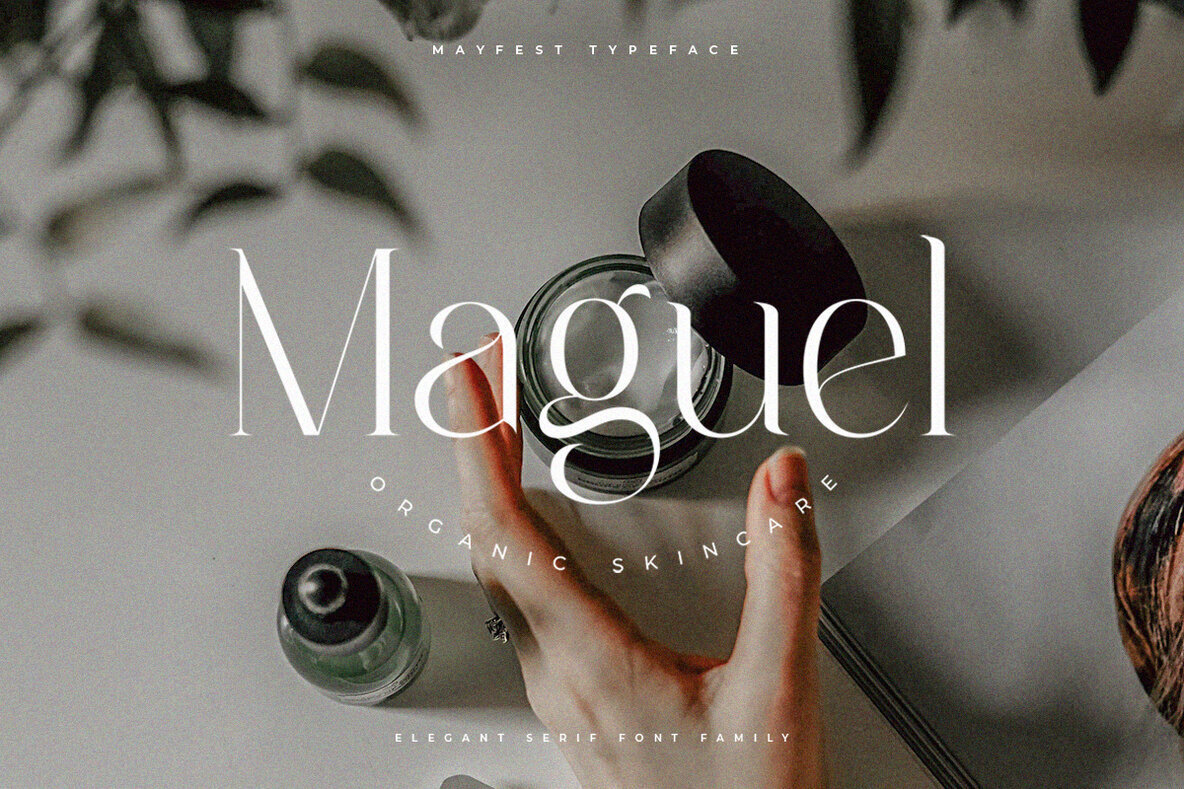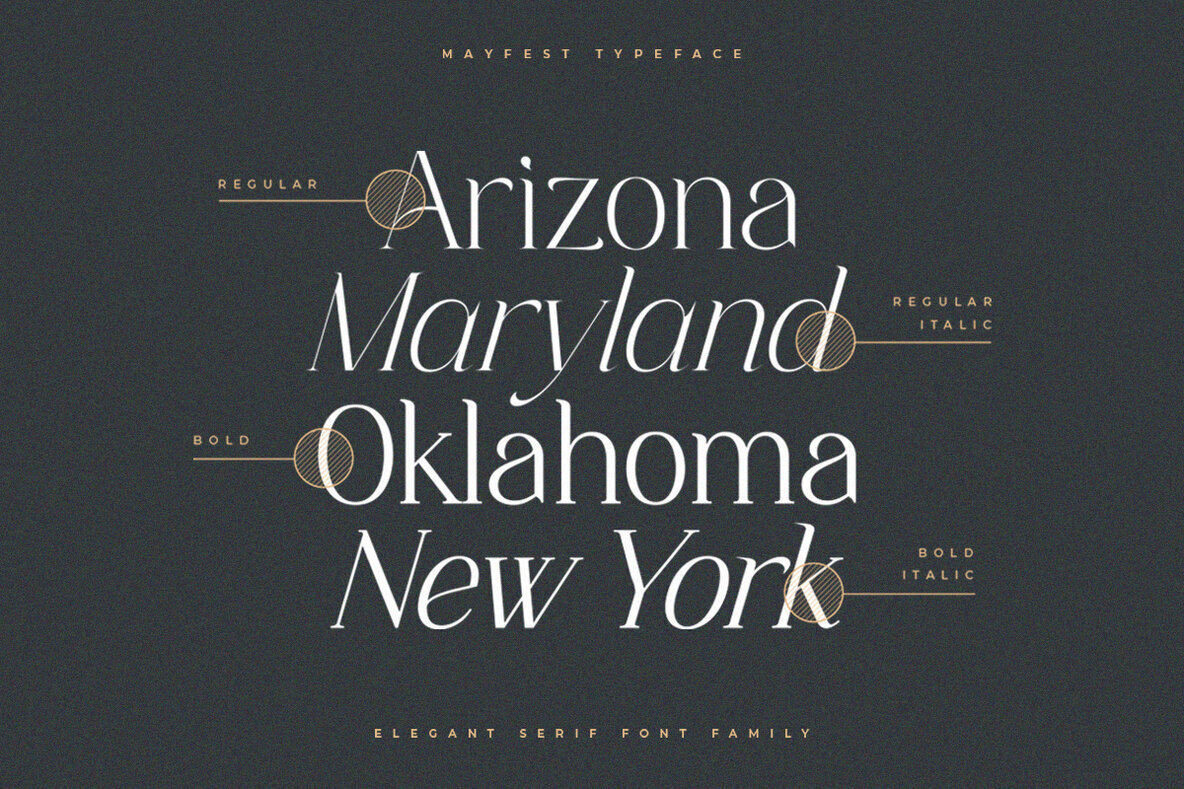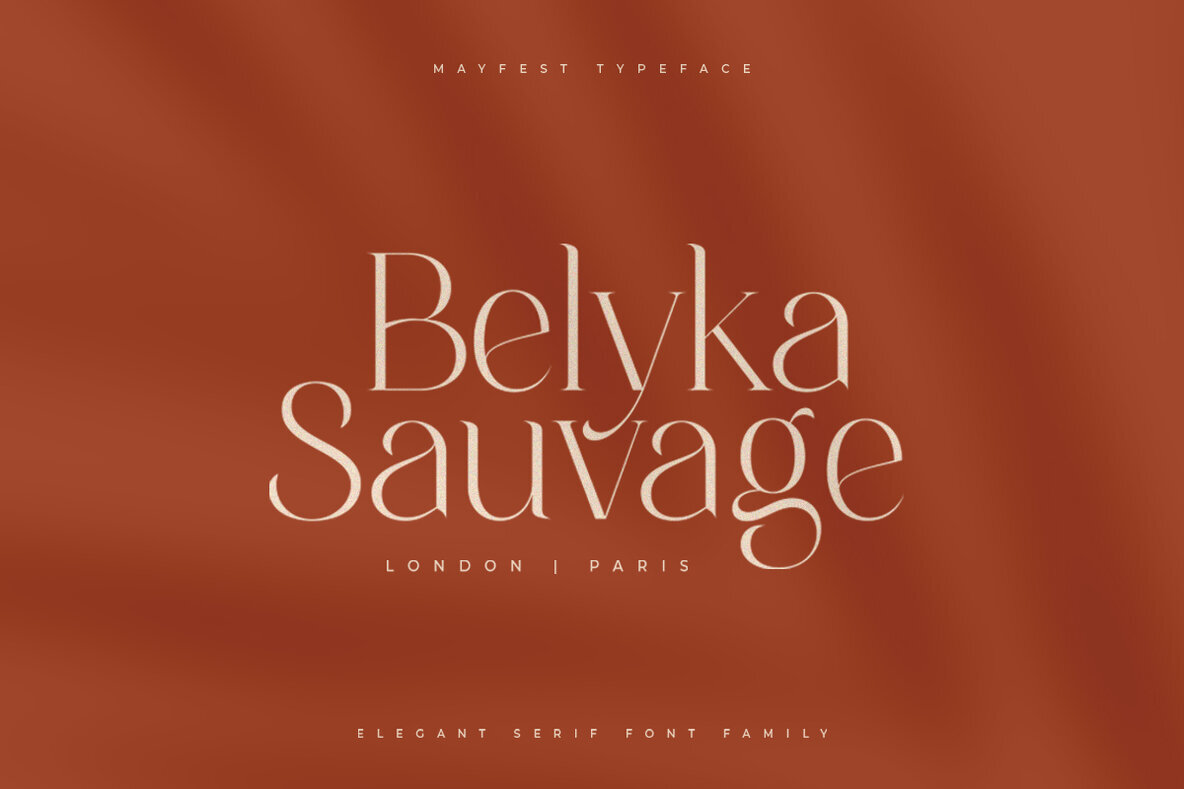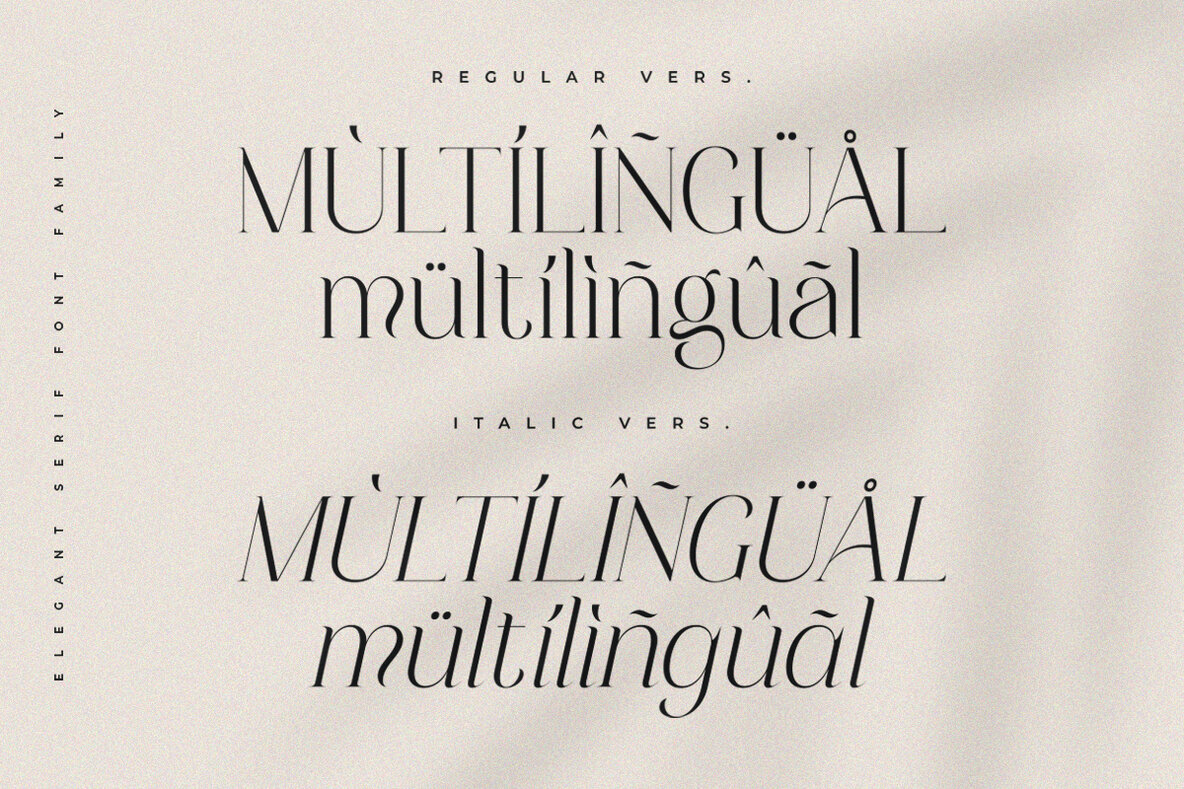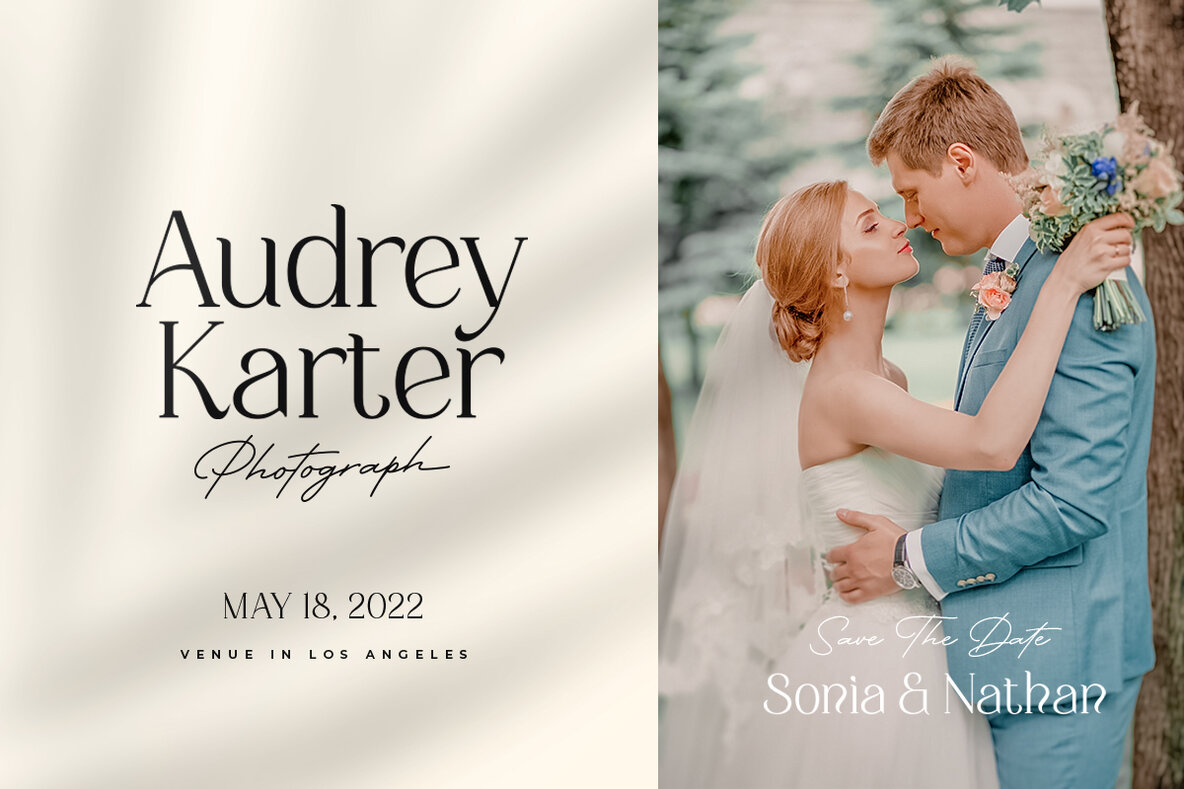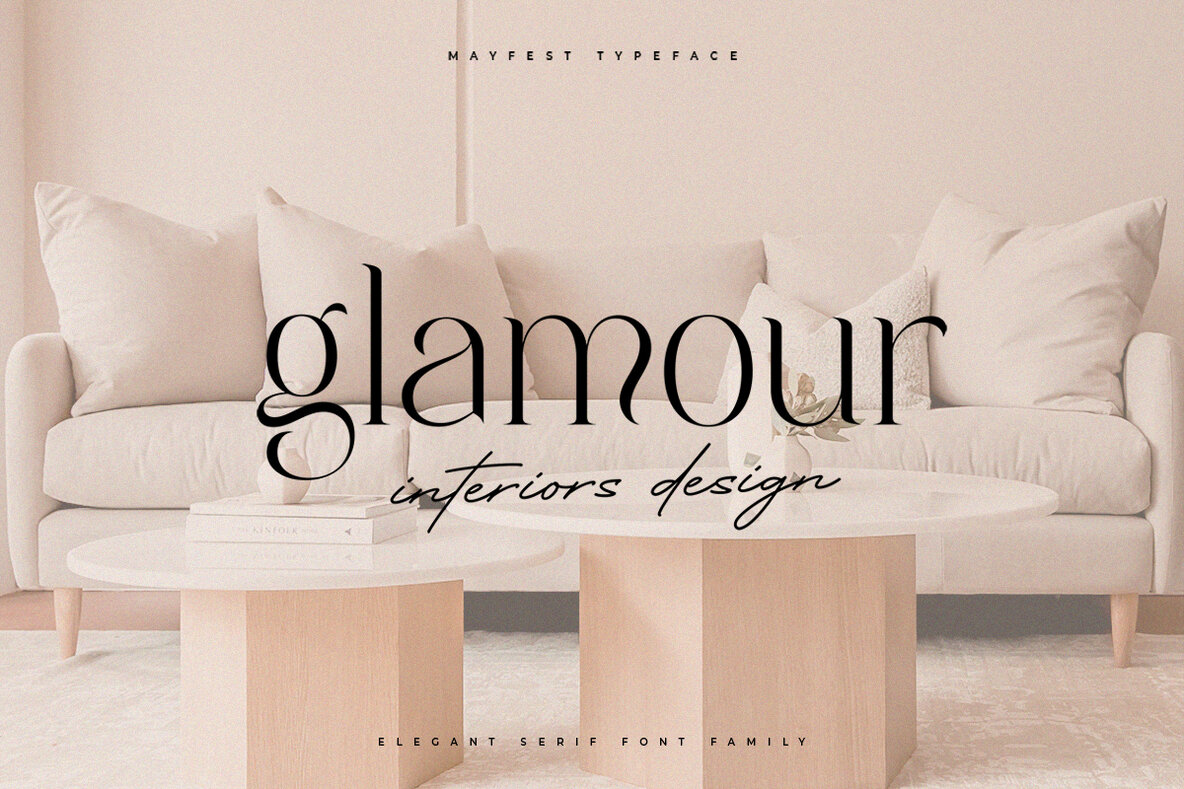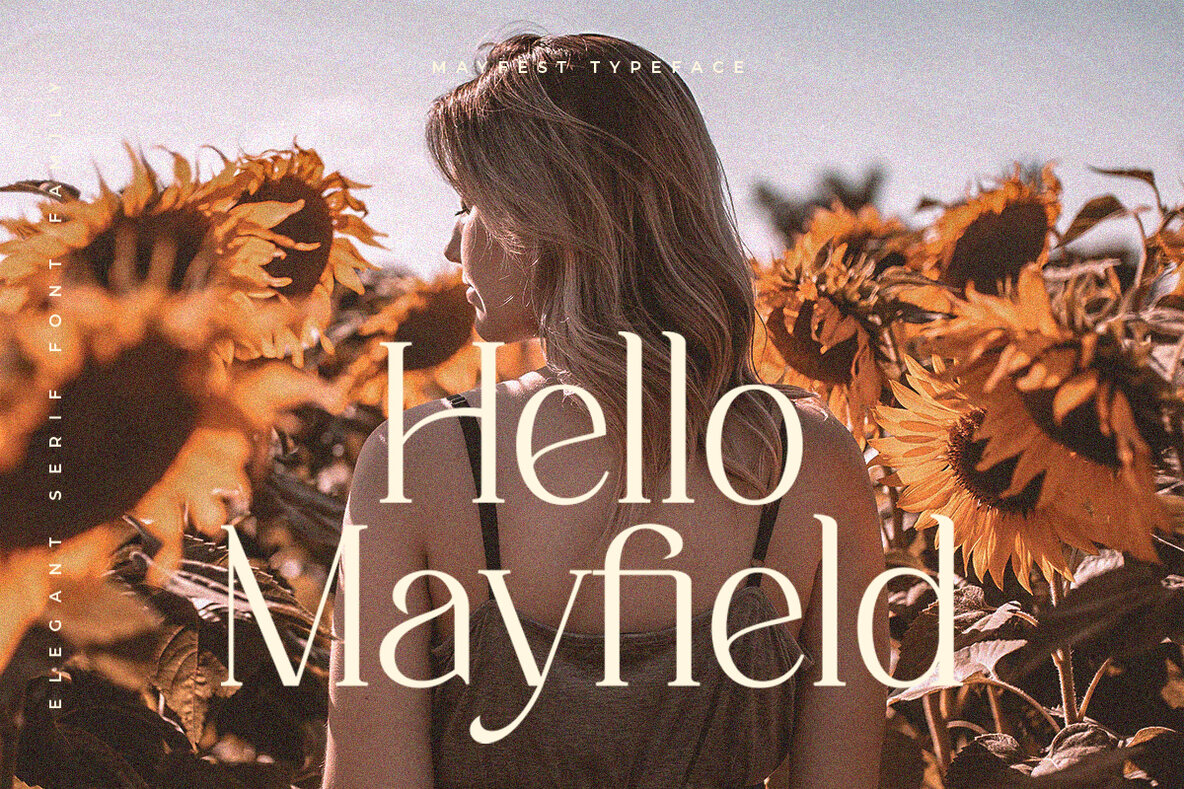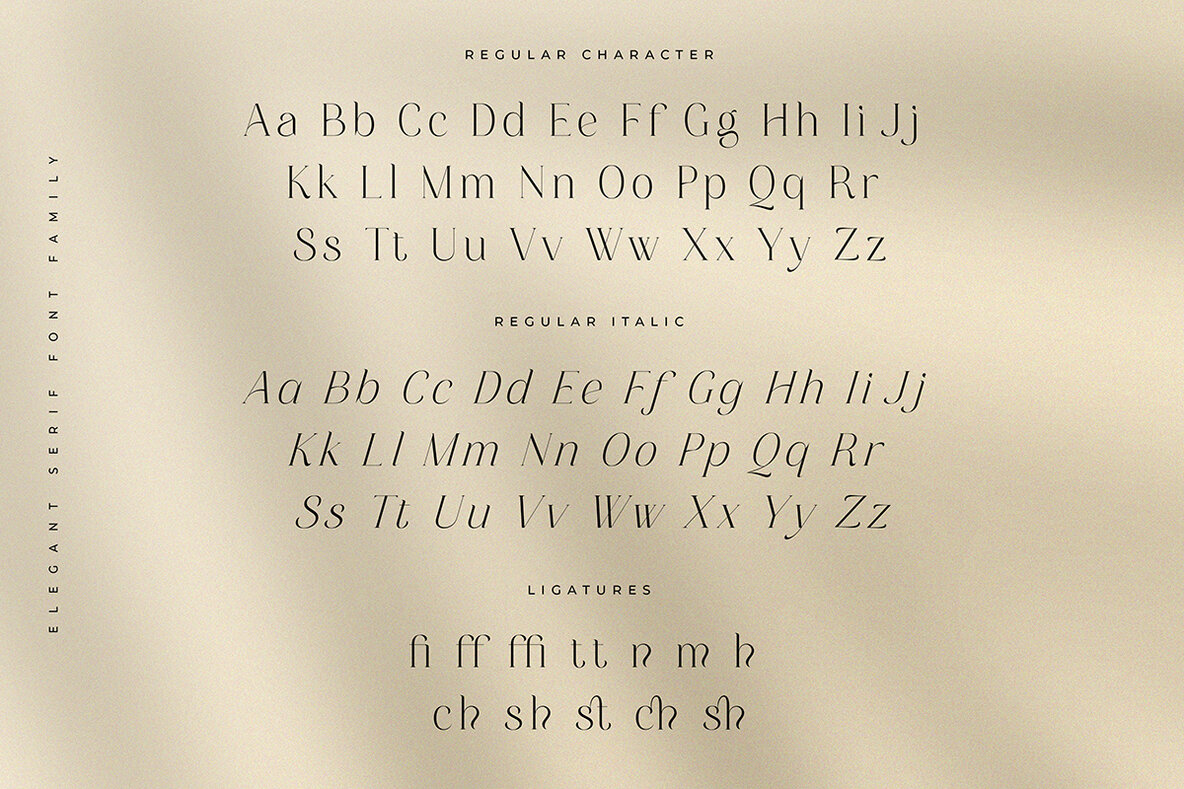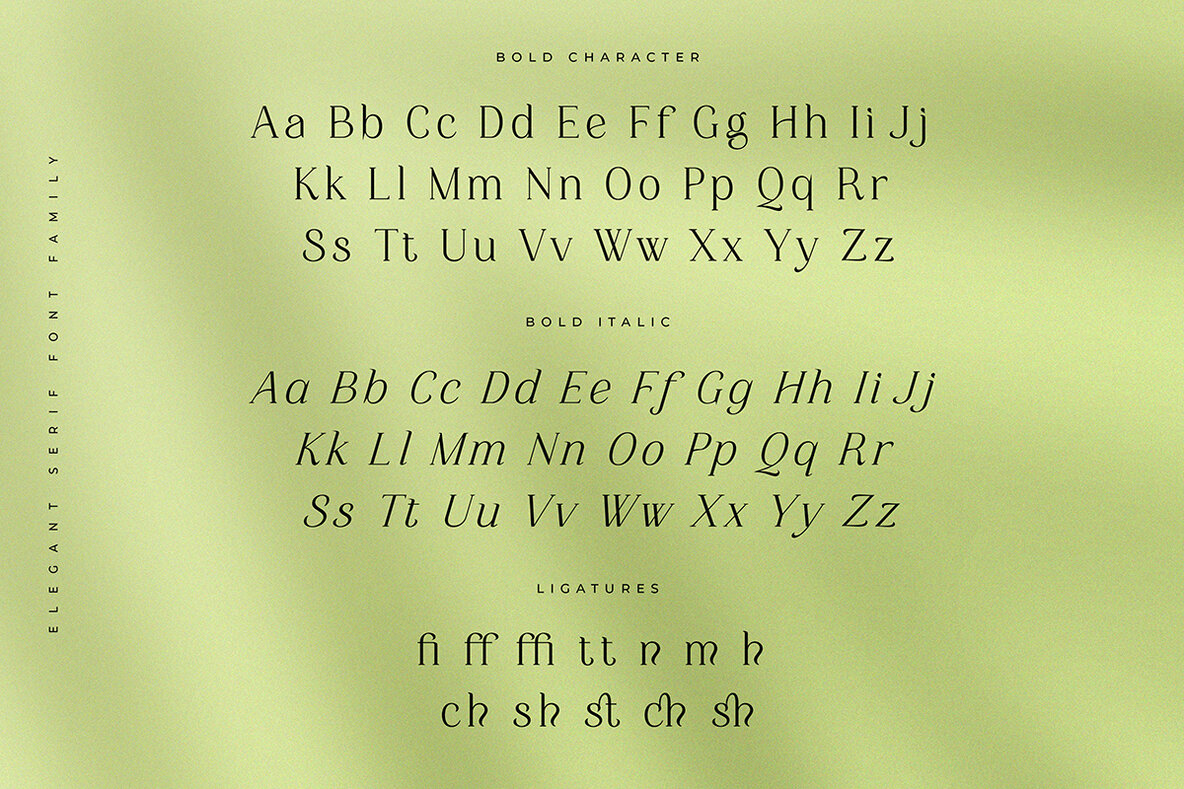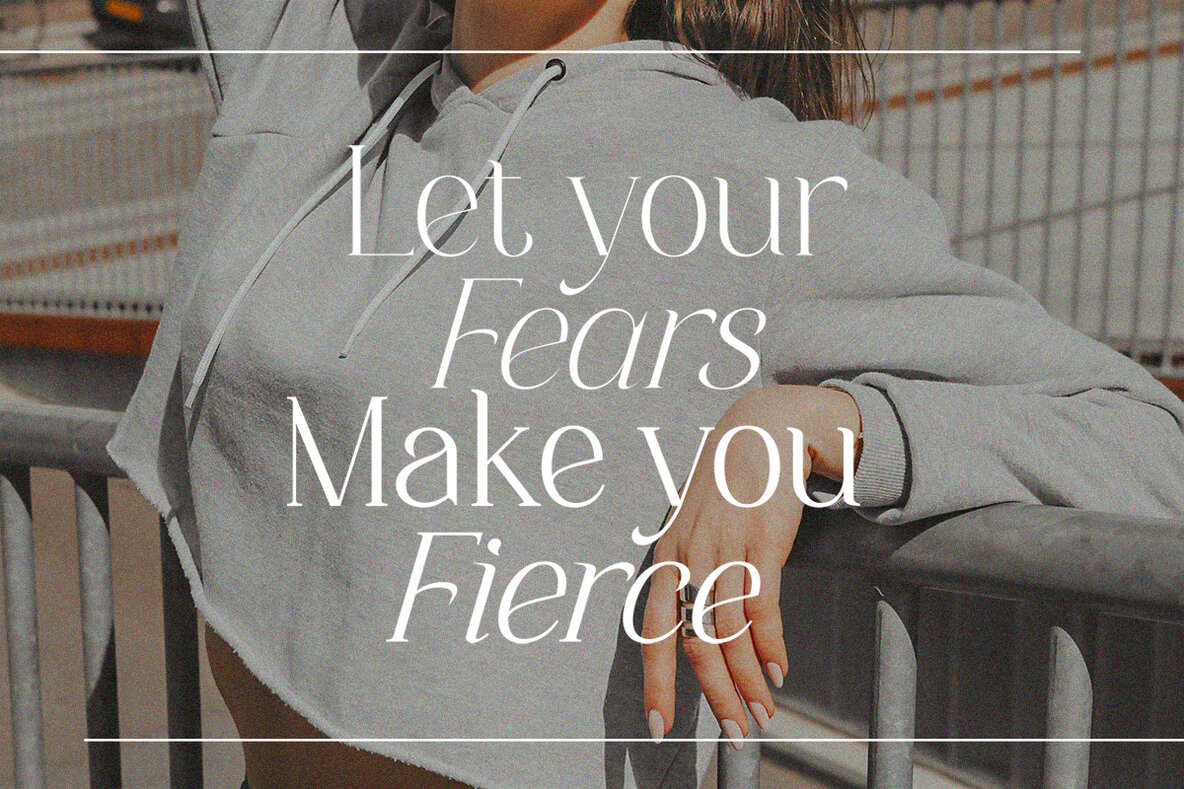
Mayfest Font
Inspired by luxury and elegance, Mayfest is a serif font that exudes sophistication. This collection captures graceful curves and stylish designs, making it ideal for projects that aim to convey opulence.Mayfest: An Elegant Display Serif